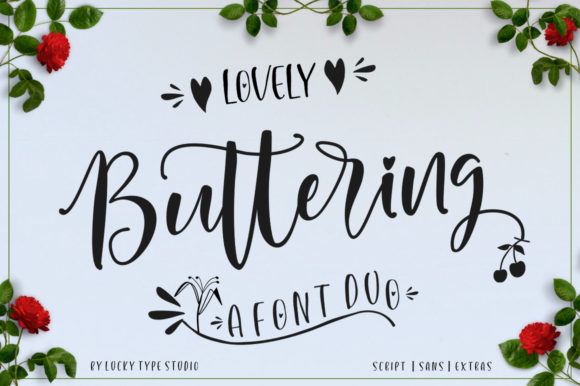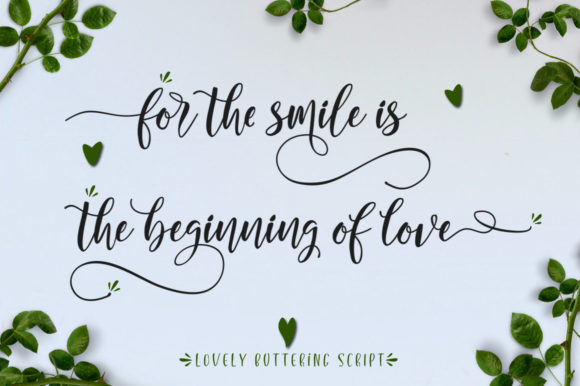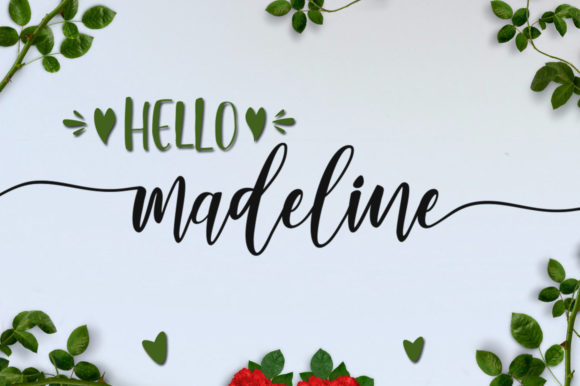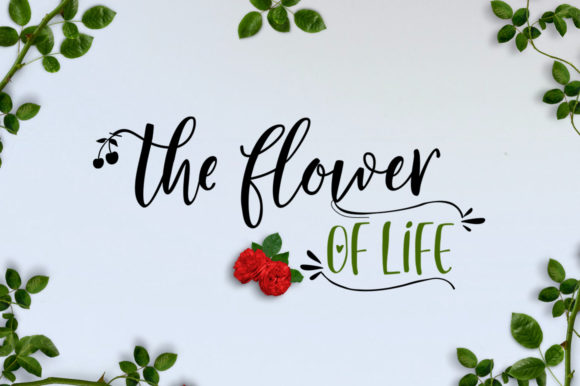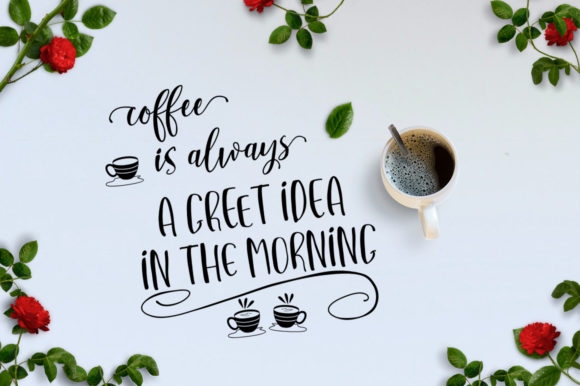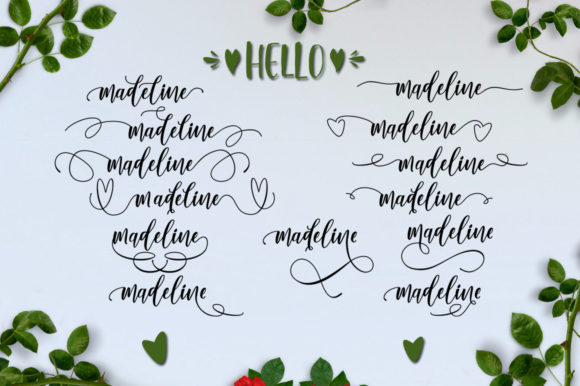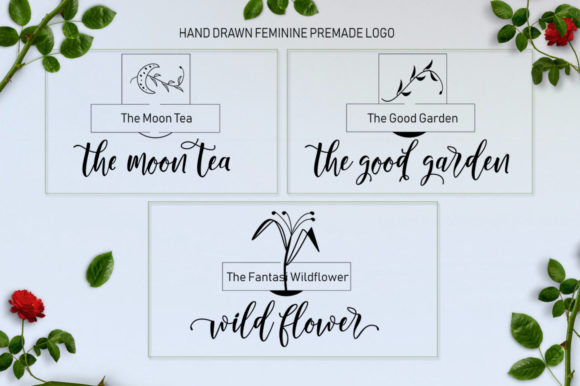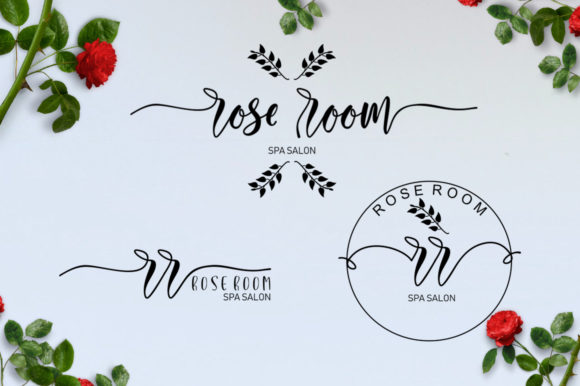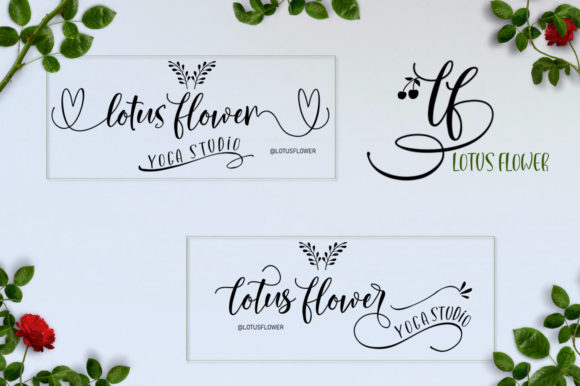
Lovely Buttering Font
About Lovely Buttering Font
Lovely Buttering is a beautiful and light handwritten font with an incredible feel. It will turn any design project into an eye catcher!